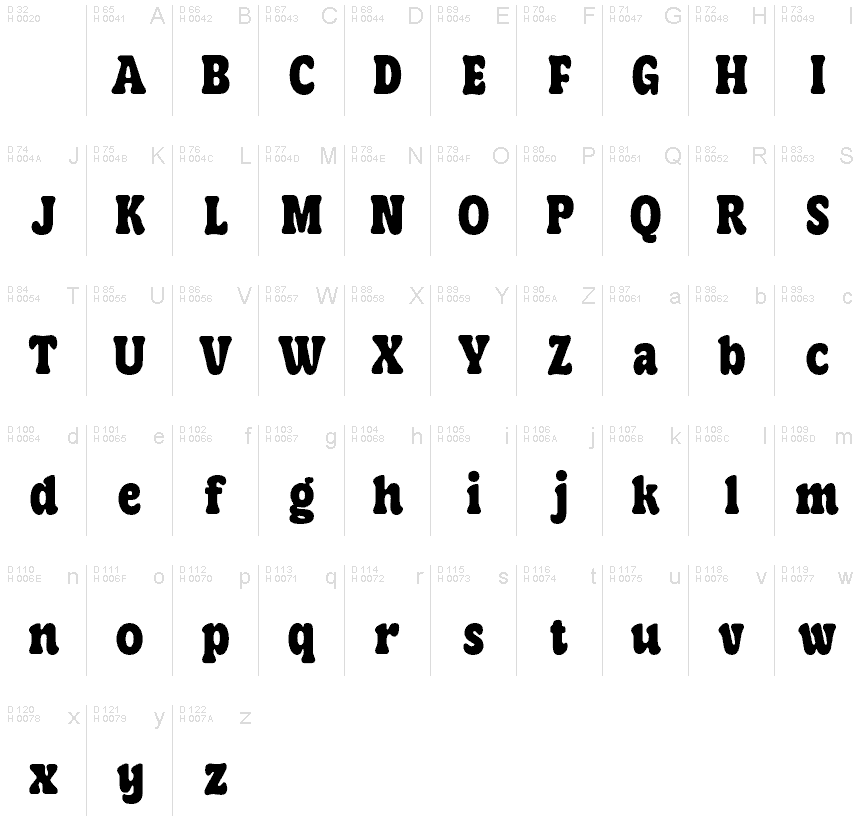
CS Mondy Regular Demo
CS Mondy font by Craft Supply Co. radiates a groovy, retro-inspired style with its bold, chunky serifs and vintage aesthetic. Its friendly appearance and decorative elements evoke a sense of nostalgia and elegance that’s bold yet incredibly pleasant to the eyes.